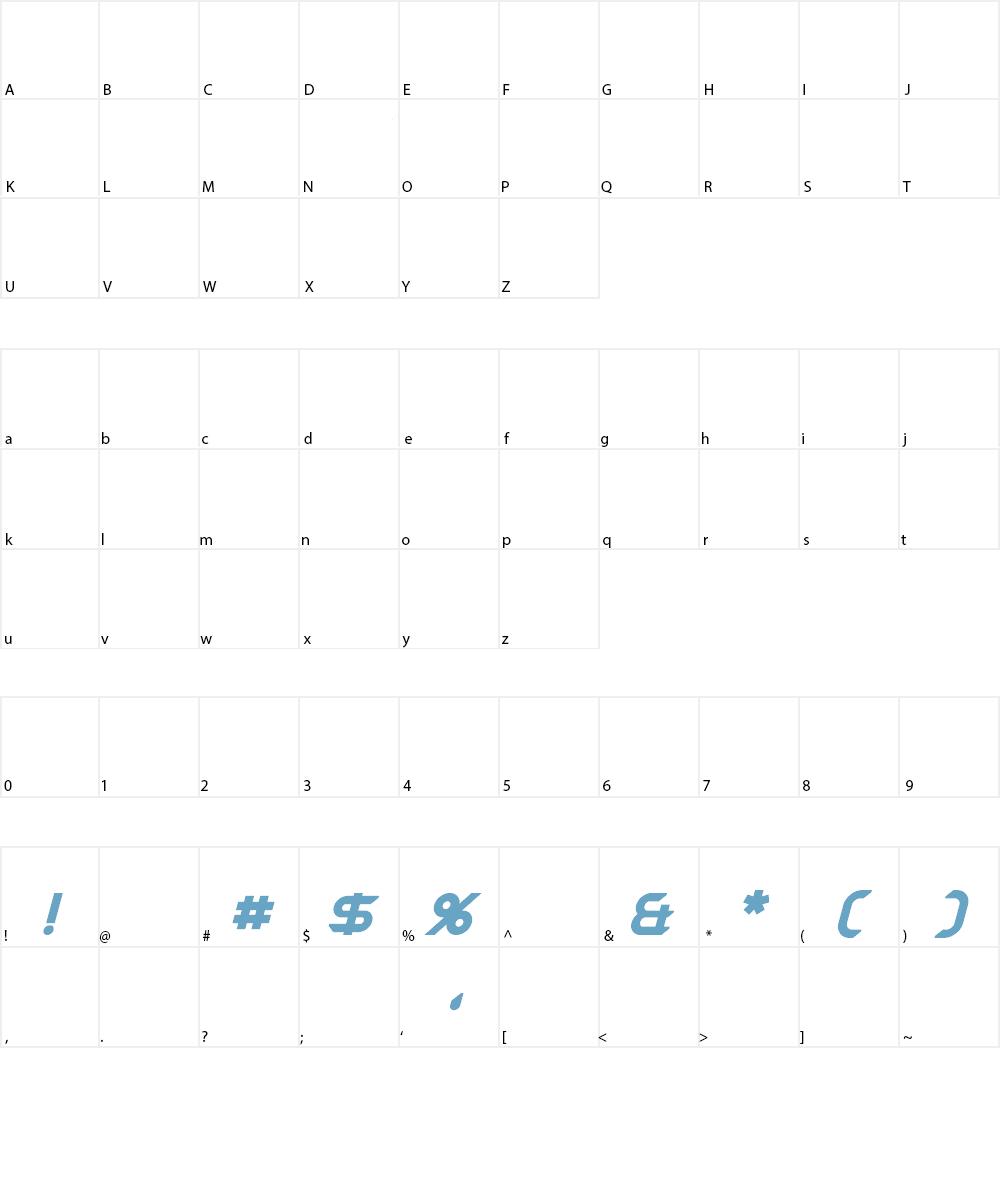
Chromia is an stylized, technographic typeface based on the packaging of Hasbro’s Prime: Robots in Disguise toyline as well as the Transformers: Fall of Cybertron toyline. Includes full alphabet, extended character set, and Euro. This font includes Bold, Italic, Bold-Italic, Condensed, and Supercap versions for a total of 16 weights.